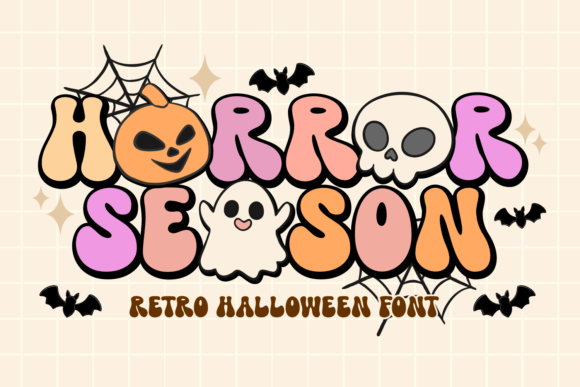
Horror Season is a delightful retro Halloween font that brings playful nostalgia to your designs. With its whimsical characters and charming Halloween-themed graphics, this font captures the essence of spooky fun from a bygone era. From adorable ghosts to adorable bats, every letter is adorned with super cute and specific Halloween elements, adding a touch of vintage charm to your projects. Whether you’re creating party invitations, or decorations, or simply want to infuse some retro joy into your Halloween creations, Horror Season font is the perfect choice for a lighthearted and charmingly eerie vibe.